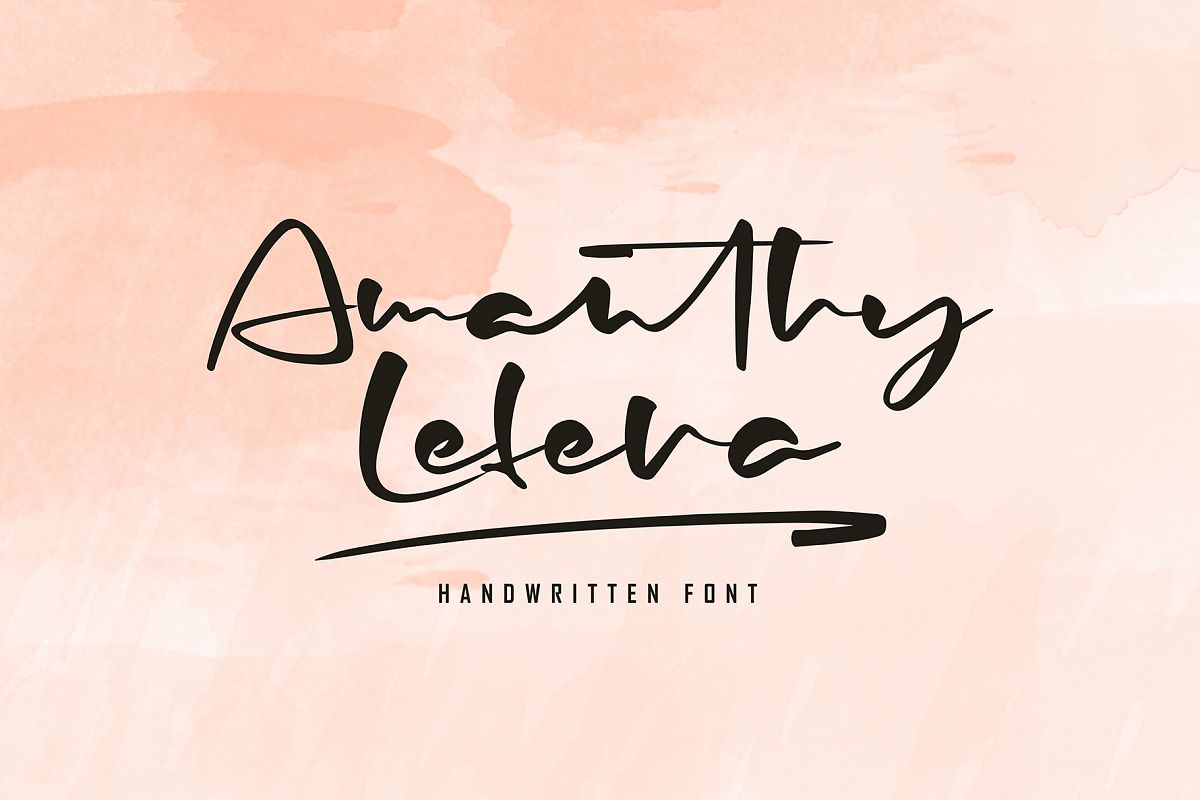
Amanthy Lefera
Amanthy Lefera font with new style handwritten, this font will perfect for many different project ex: quotes, logo, blog header, poster, banding, fashion, apparel, letter, invitation, stationery, etc...